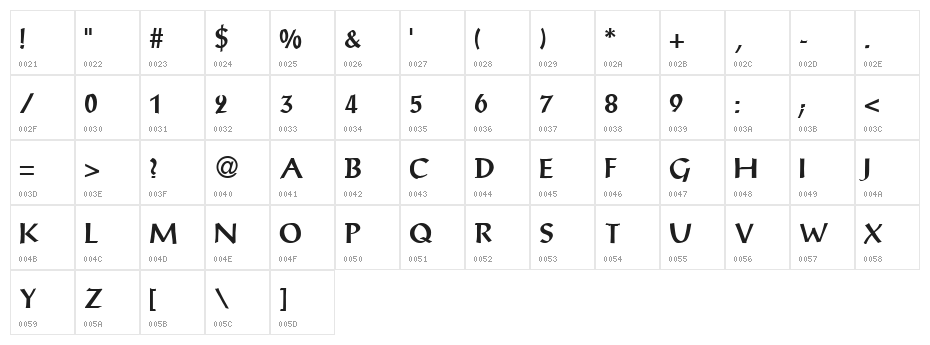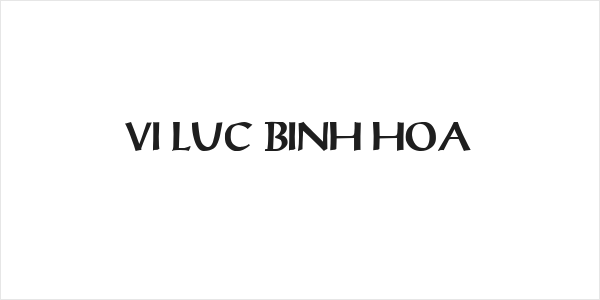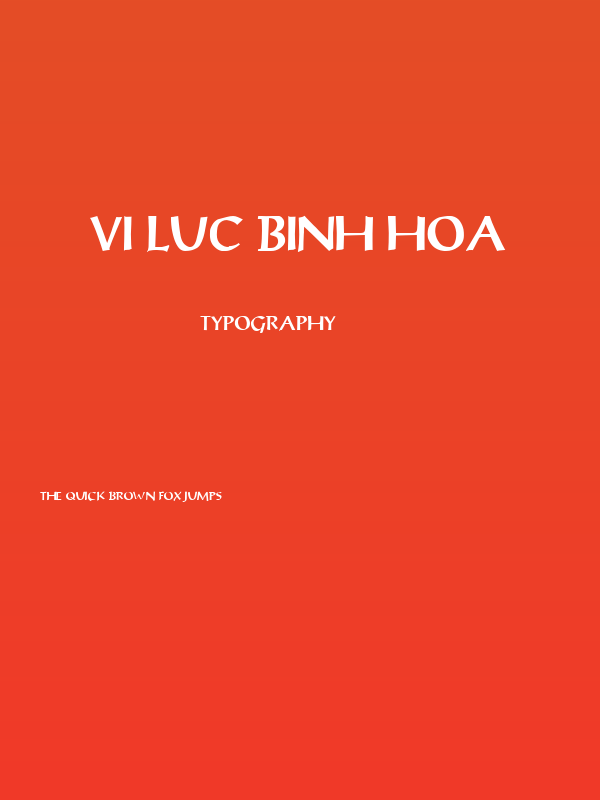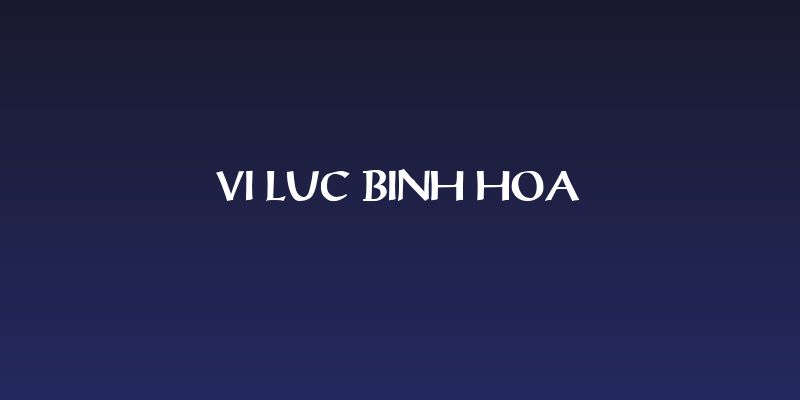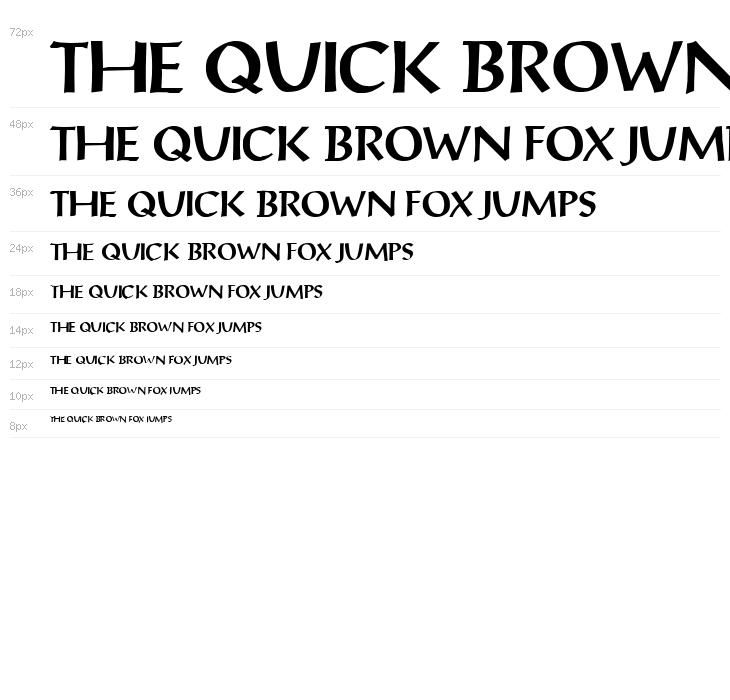
VI Luc Binh Hoa Font
VI Luc Binh Hoa Description
This font features a bold and dynamic style with sharp, angular serifs and a strong presence. The uppercase letters exhibit a distinct flair, with unique cuts and curves that add a sense of movement and energy. The lowercase letters maintain this dynamic quality, providing a cohesive look across the alphabet. Numbers are equally bold, ensuring readability and impact. Special characters are designed to match the overall aesthetic, making this font versatile for various uses. The strokes are consistent in weight, offering a medium contrast that enhances legibility while maintaining a decorative appeal.
| Proposed Projects | Ideal for branding, posters, and headlines where a strong, impactful presence is desired. |